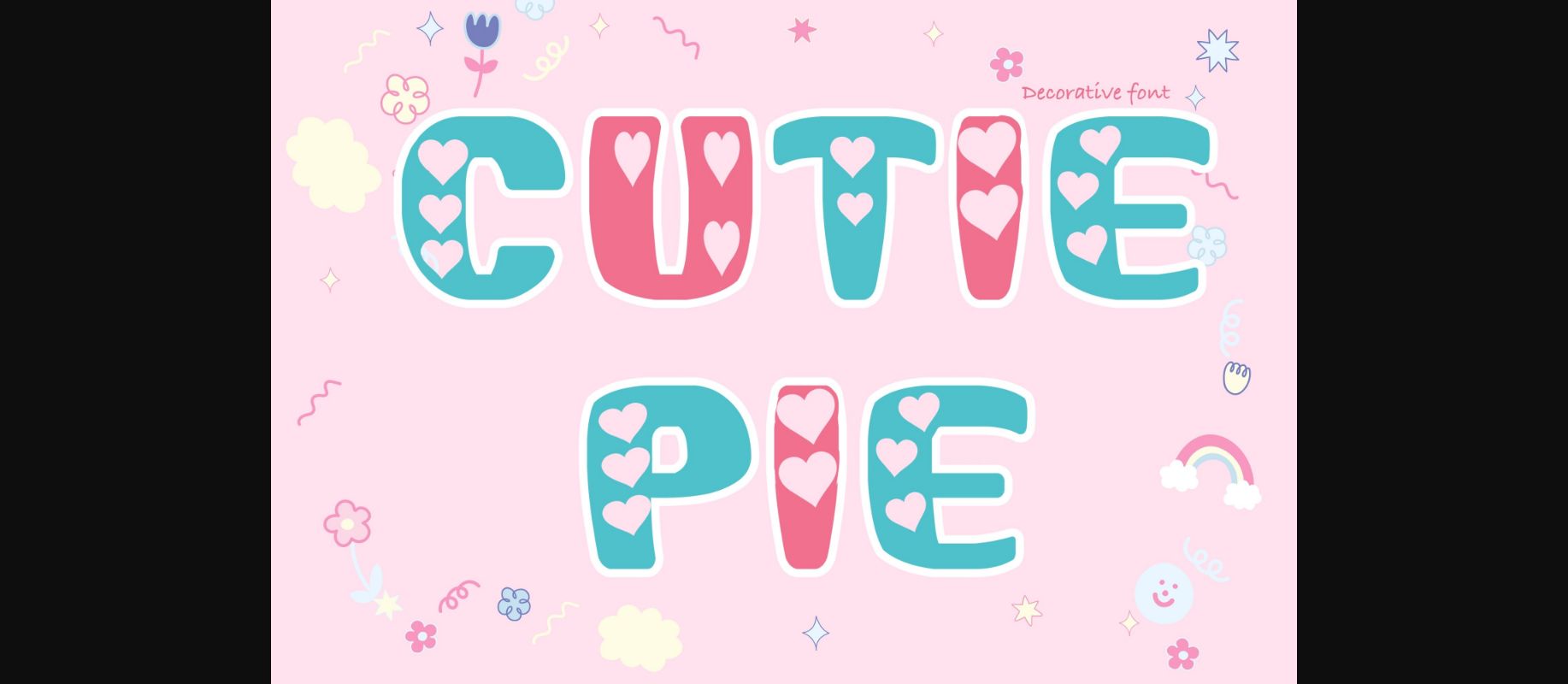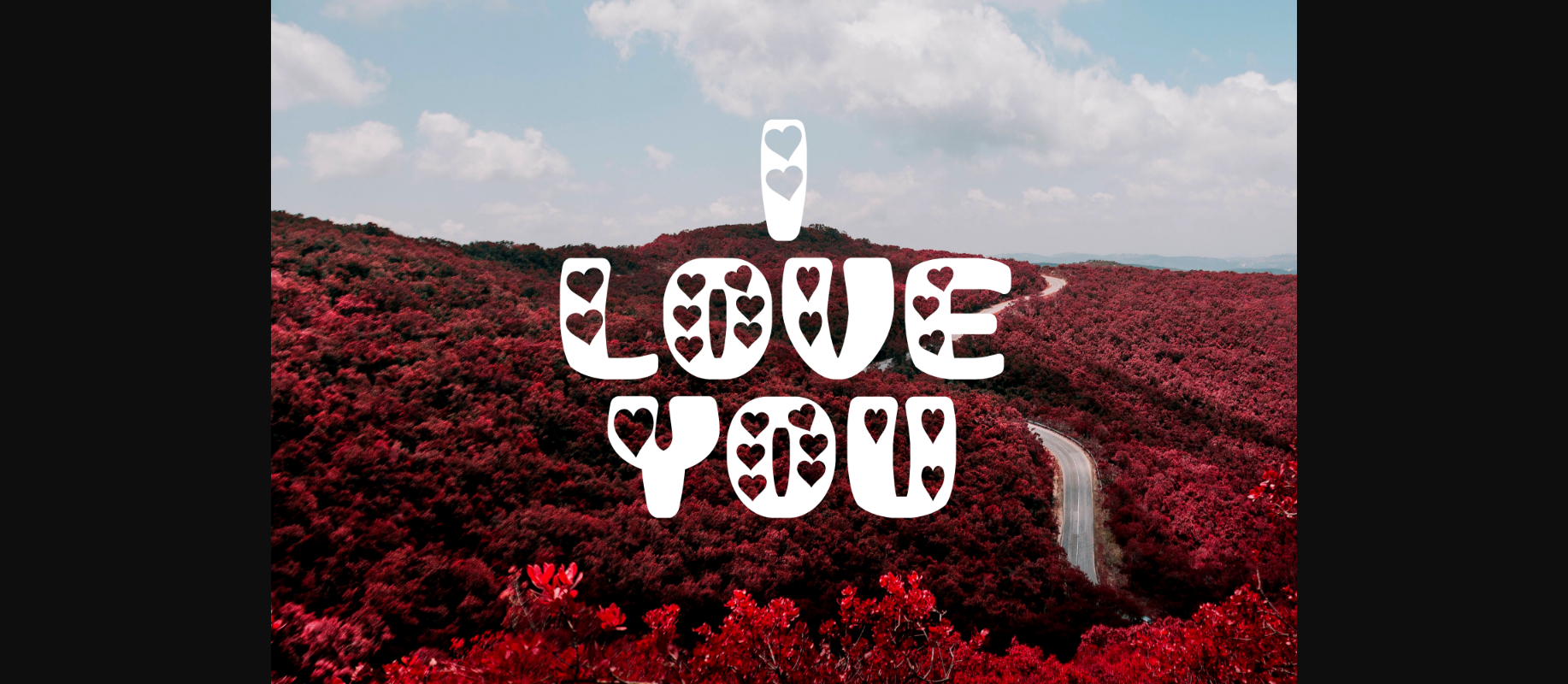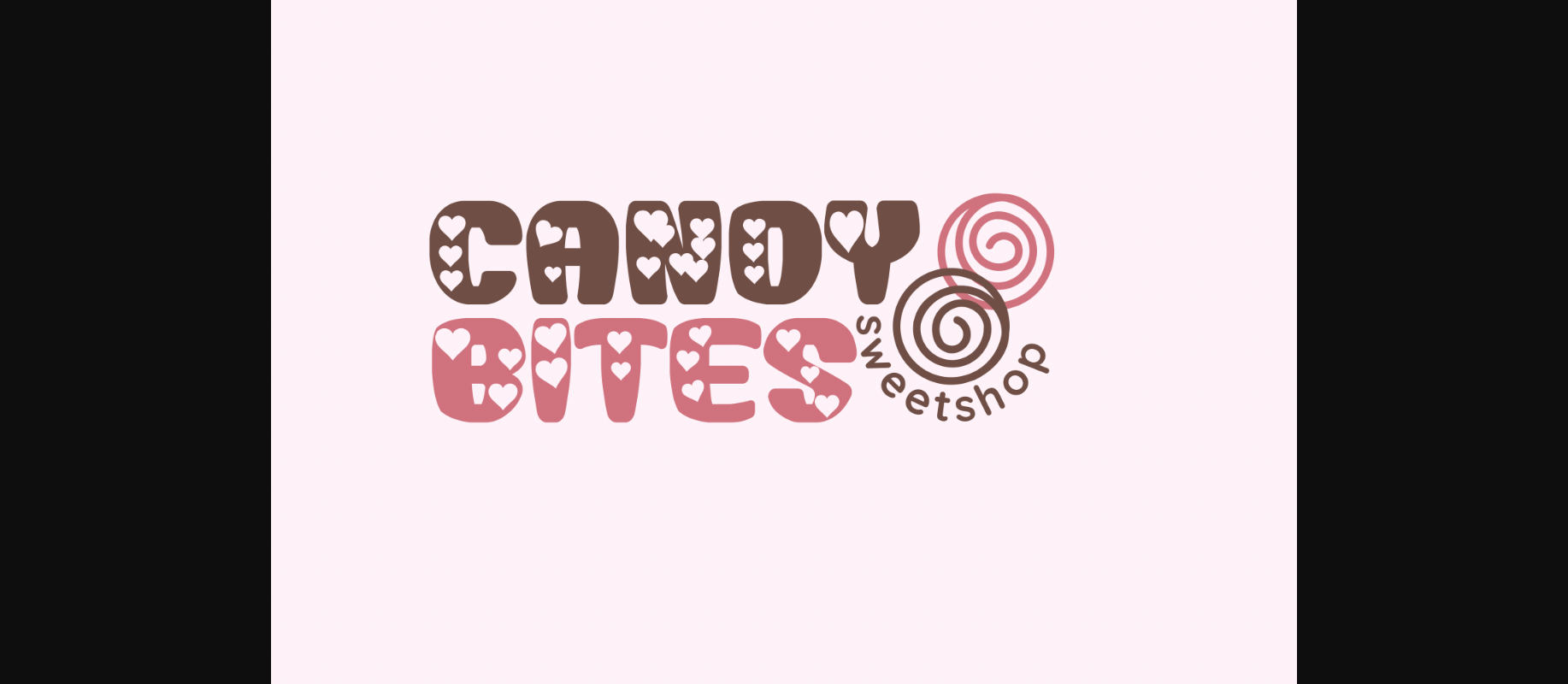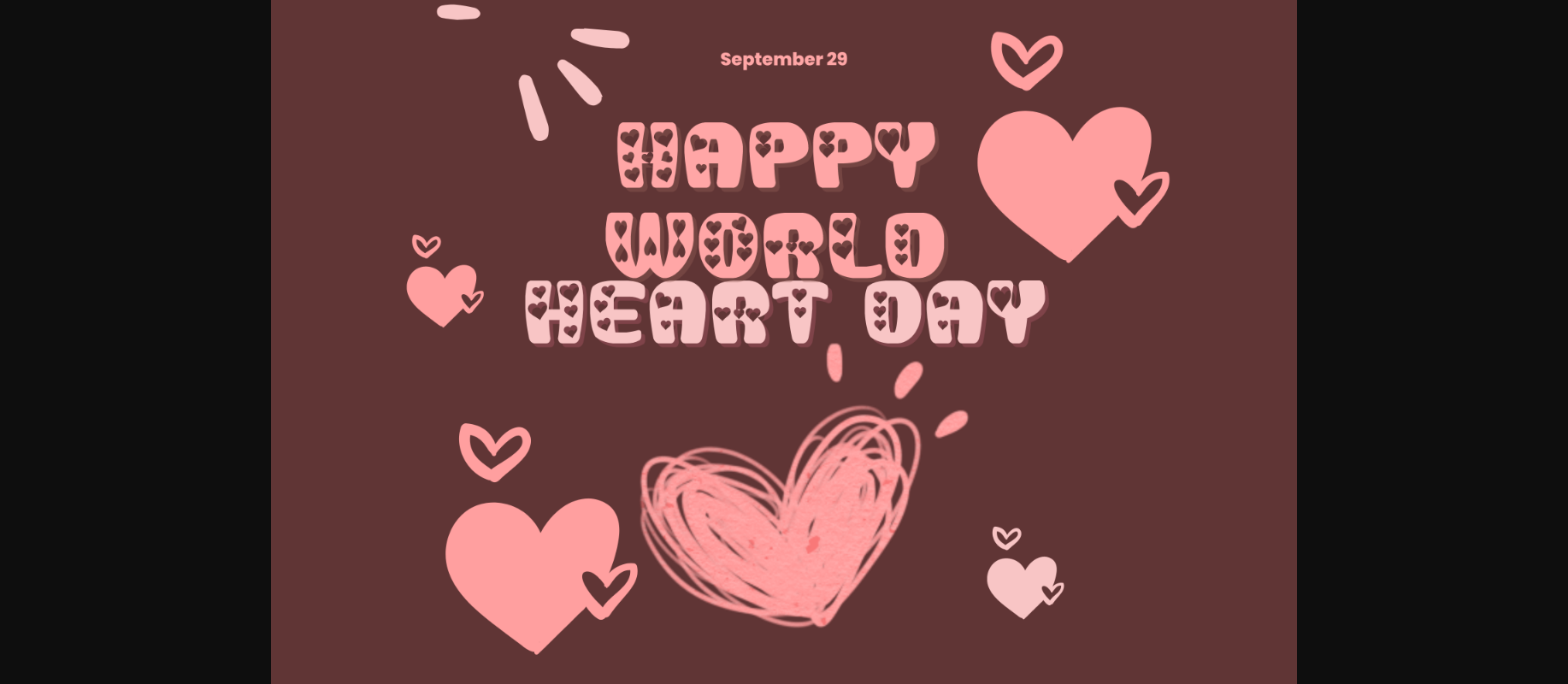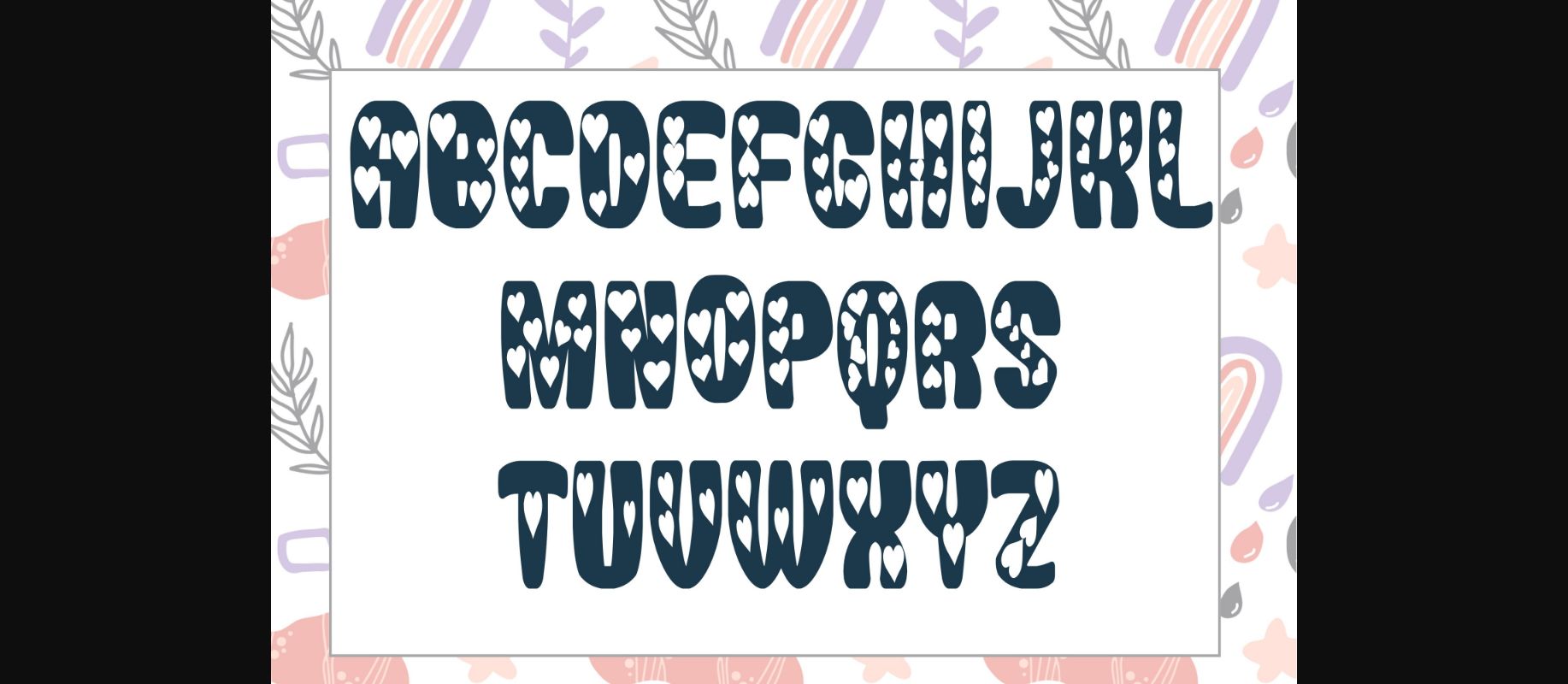
About Cutie Pie Font
Cutie Pie is a lovely decorative font that’s sweet, adorable, and festive! The typeface is designed to provide easy and whimsical Valentine’s Day vibes to your designs!